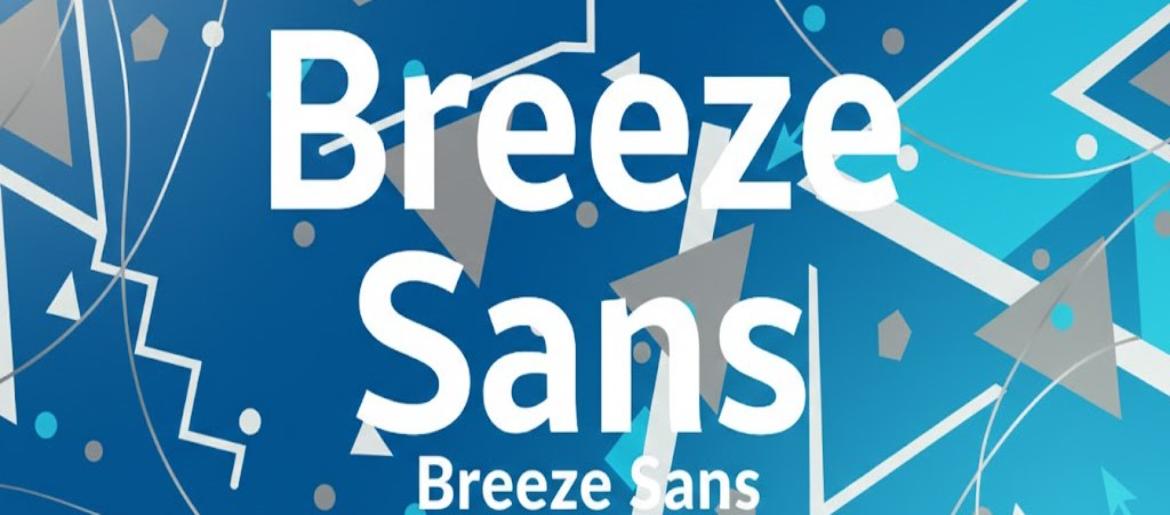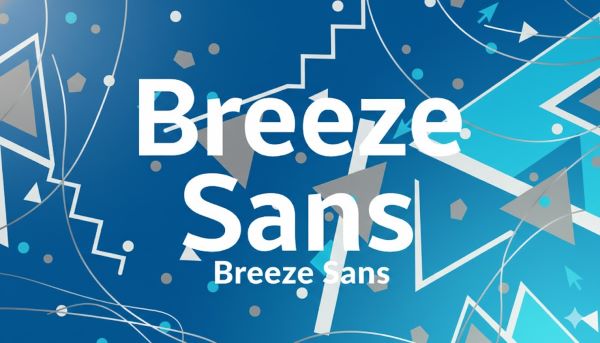
Breeze Sans Font
Breeze Sans Font is a modern sans serif typeface crafted by Dalton Maag Ltd, designed for clarity, versatility, and contemporary digital use. It features clean letterforms and balanced proportions that enhance readability across interfaces, branding, and editorial layouts. Its professional and flexible character makes it a dependable and stylish choice within high-quality and functional free fonts collections.
➤ Font Name: Breeze Sans
➤ Designer: Dalton Maag Ltd
➤ Style: Sans Serif